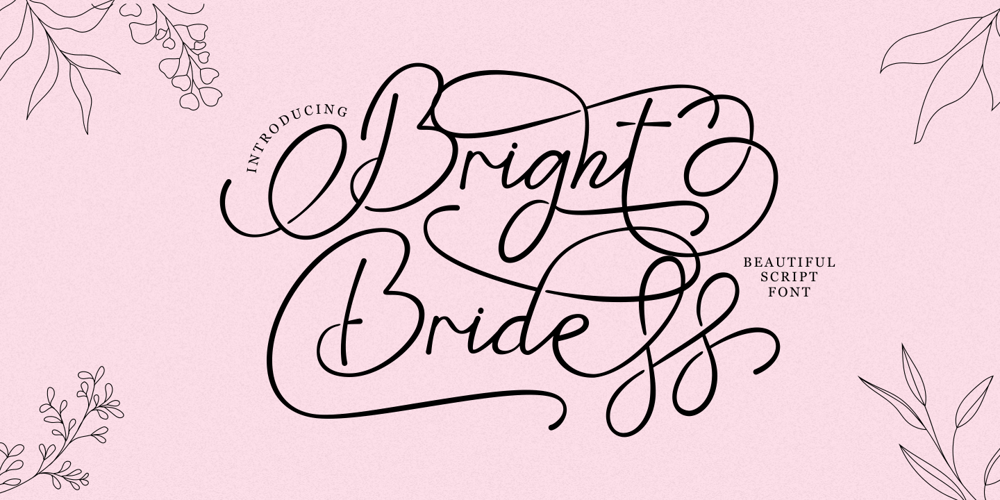
Bright Bridge Font Family was designed by Putra Novembria Candra Kusuma and published by Putracetol. Bright Bridge contains 1 styles and family package options. Bright Bride – Beautiful Script FontIntroducing Bright Bride, a stunning and elegant script font that exudes sophistication and beauty. This font was carefully crafted with the intention of adding a touch of glamour to any design project. Its clean lines and flowing curves create a sense of grace and charm, making it perfect for wedding invitations, branding projects, social media posts, and much more.For those seeking a romantic and feminine touch, Bright Bride is the perfect font choice. Its delicate strokes and intricate details add a level of elegance that is sure to catch the eye of any viewer. Pair it with soft pastels or classic black and white to create a stunning contrast that will make your designs stand out.One of the standout features of Bright Bride is its OpenType alternates and ligatures. These unique letter combinations add an extra level of creativity and customization to your designs. Plus, with full multilingual support, this font can be used for projects in a variety of languages.The Bright Bride font package includes three different file formats: OTF, TTF, and WOFF. This makes it easy to use the font across a variety of design software and platforms. Whether you’re a professional graphic designer or a casual hobbyist, this font is sure to be a valuable addition to your design arsenal.If you’re looking for a font that is both stunning and versatile, look no further than Bright Bride. Its unique combination of elegance and creativity make it a perfect fit for a wide range of projects. So why wait? Add Bright Bride to your font collection today and start creating designs that are truly unforgettable.In summary, Bright Bride is a beautiful and sophisticated script font with delicate strokes and intricate details. It comes with OpenType alternates and ligatures, multilingual support, and three different file formats: OTF, TTF, and WOFF. This font is perfect for wedding invitations, branding projects, social media posts, and more.